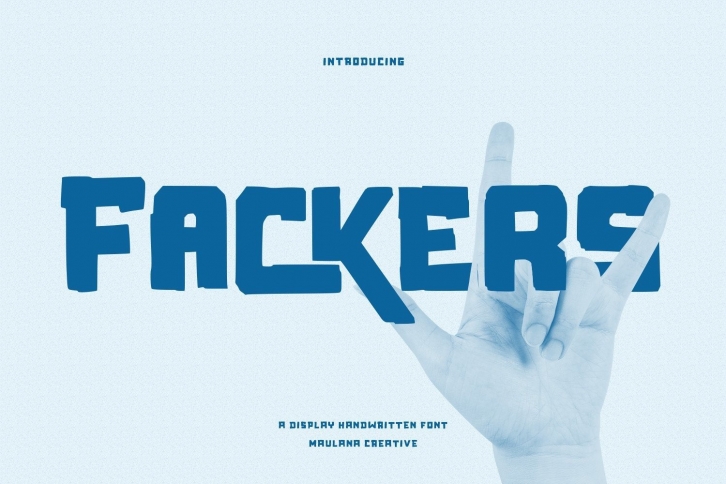
Fackers is an incredibly unique handwritten display font. Masterfully designed to become a true favorite, this font has the potential to bring each of your creative ideas to the highest level!